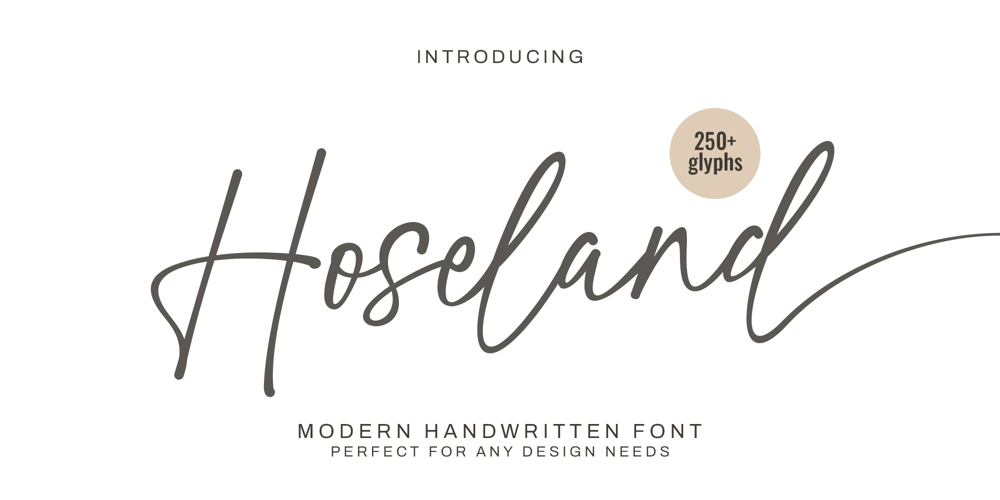
Hoseland Font Family was designed by Muhammad Mujibulloh and published by MJB Letters. Hoseland contains 1 styles and family package options. oseland is a beautifully crafted handwritten font with a modern and stylish touch. Designed with smooth curves and elegant strokes, this font exudes sophistication while maintaining a natural and personal feel. With over 250+ glyphs, it provides versatility for any design project.Perfect for:– Branding & Logo Design– Wedding Invitations & Stationery– Social Media & Quotes– Product Packaging & Labels– Business Cards & Magazines– Website & Blog HeadersFeatures:– Elegant & Modern Handwritten Style– 250+ Glyphs for Unique Customization– Smooth & Natural Flowing Strokes– PUA Encoded & Multilingual SupportLet Hoseland bring a graceful and personal touch to your next design project!